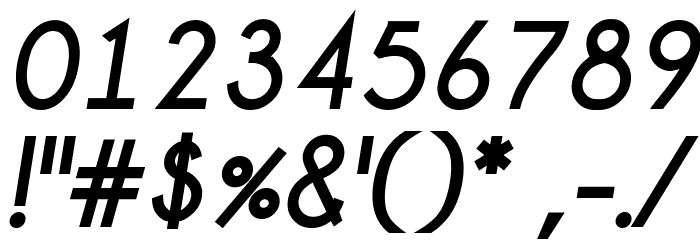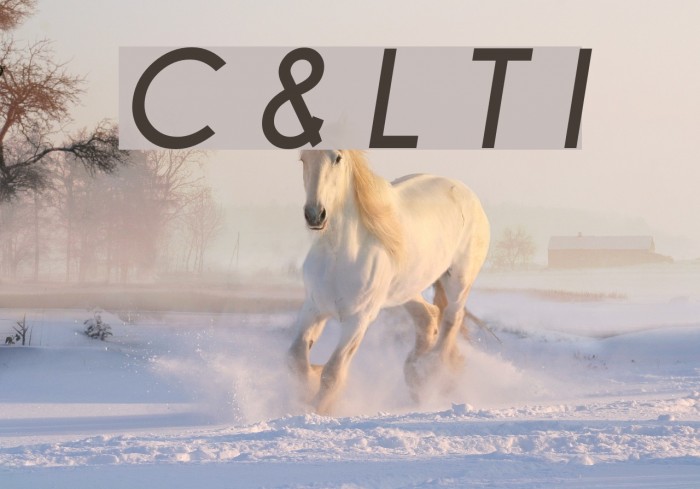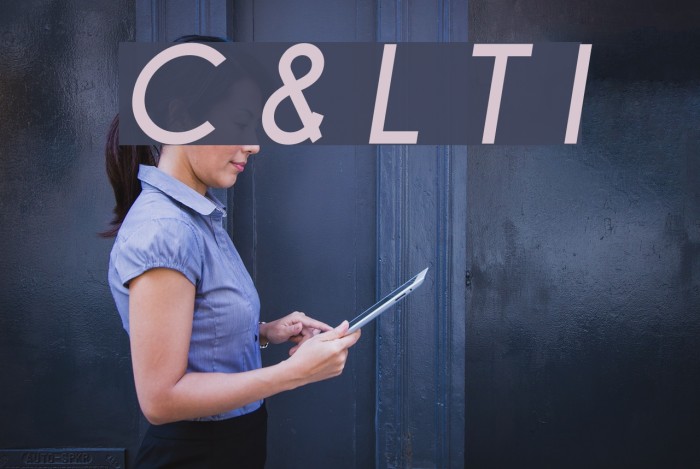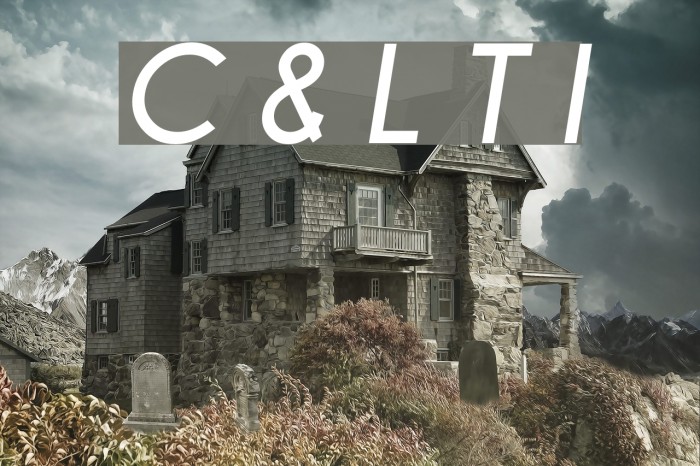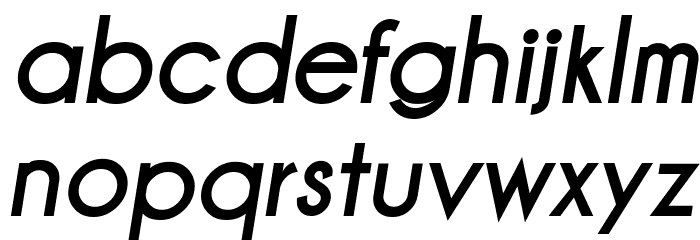
Champagne & Limousines Thick Italic Font
This font exhibits a sleek and modern aesthetic with a slightly italicized style, giving it a dynamic and elegant appearance. The characters are well-proportioned with a consistent stroke width that adds to its readability. The uppercase letters are bold and commanding, while the lowercase letters maintain a smooth and flowing form. The numerals are clear and distinct, ensuring legibility in various contexts. Special characters are designed to complement the overall style, making this font versatile for different design needs.
A modern, italicized font with sleek, bold characters and smooth lowercase letters.
• Proposed Projects: Ideal for branding projects, elegant invitations, modern websites, and stylish editorial layouts.
• Category: Sans-Serif
• Bold: Yes
• Italic: Yes
• Weight: Bold
• Width: Normal
• Character Spacing: Normal
• Contrast: Low
• Overall Style: Modern
• Use Case: Headlines, Logos, Branding